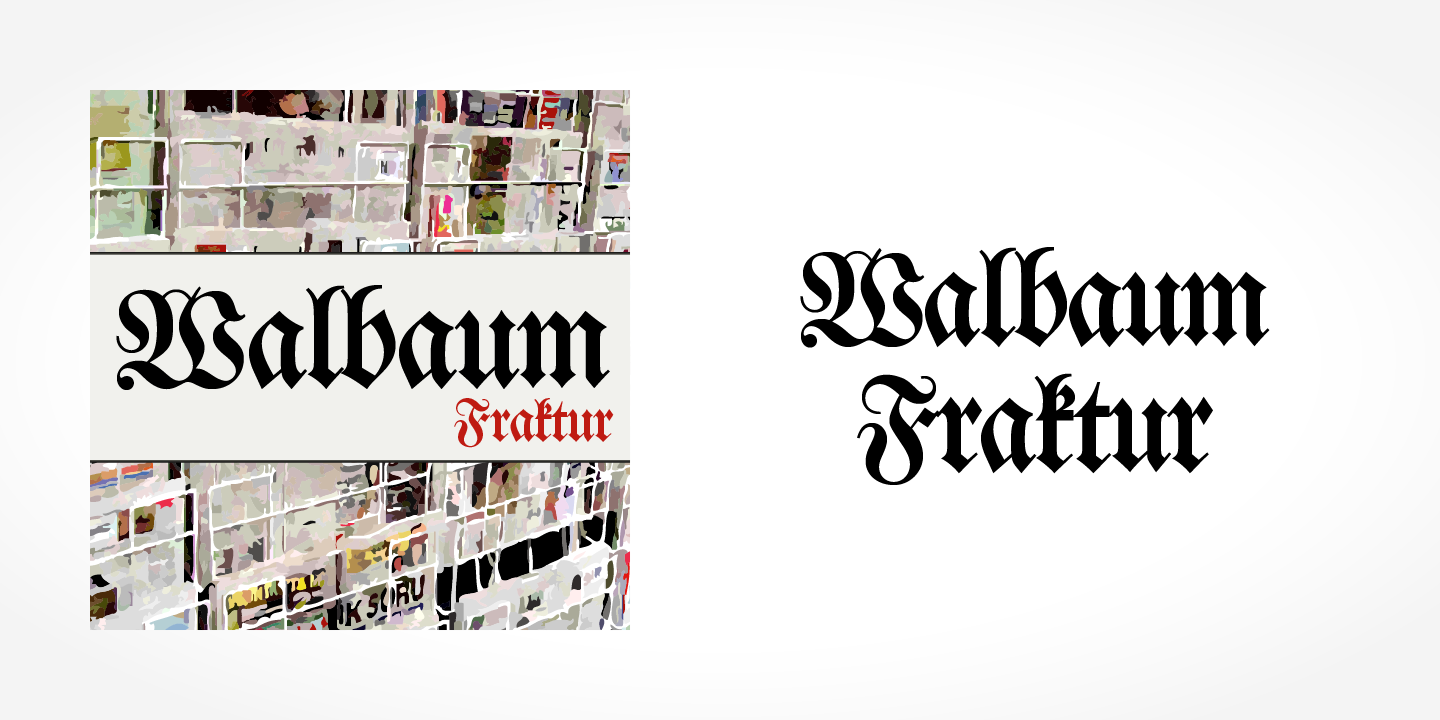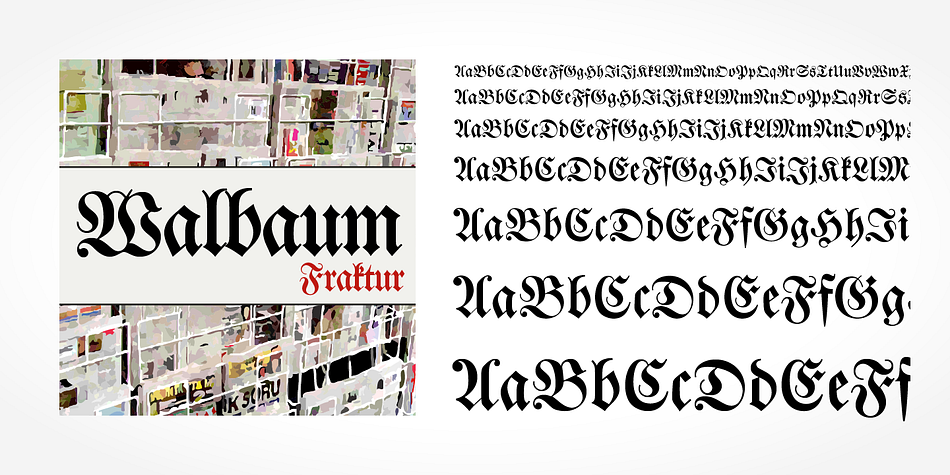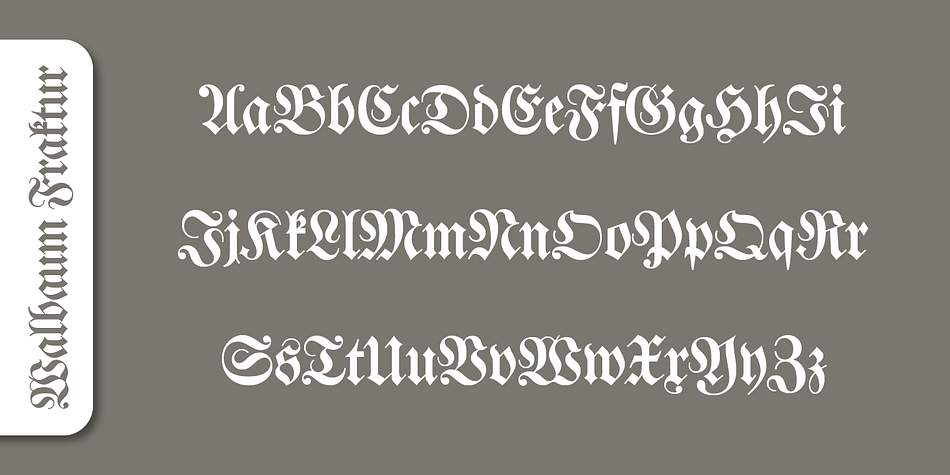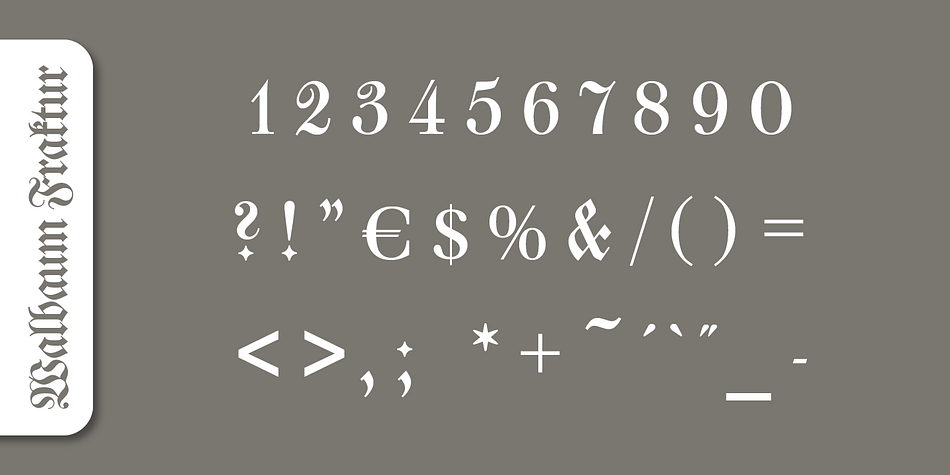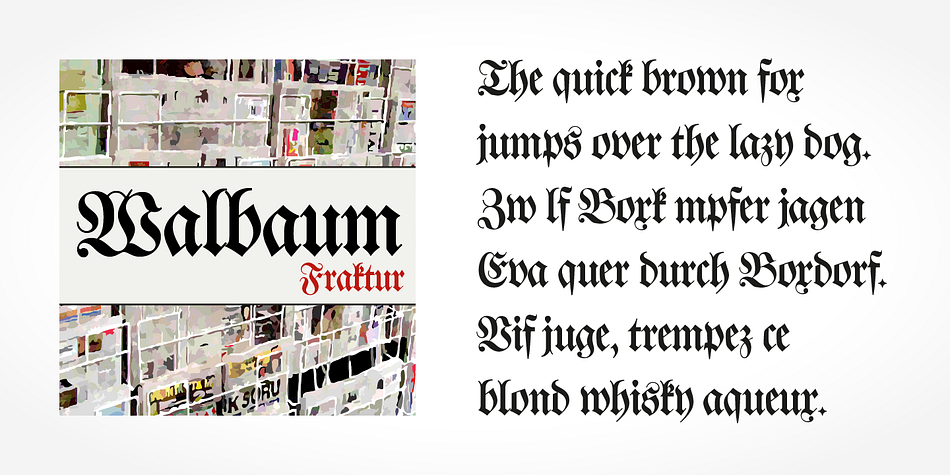
Walbaum Fraktur
Walbaum Fraktur is a blackletter font published by SoftMaker.
Walbaum Fraktur is an excellent font for anything old-fashioned, Northern European, or typographically quirky.